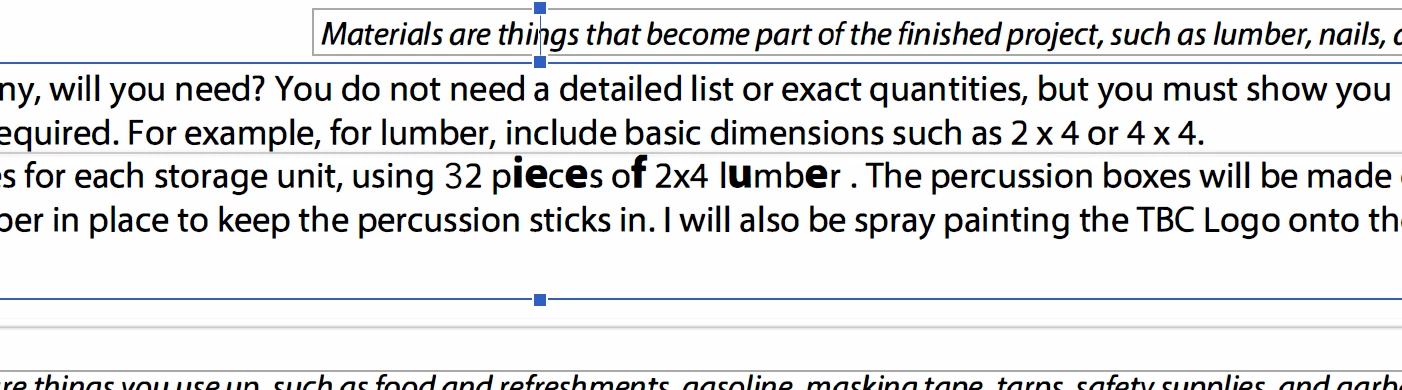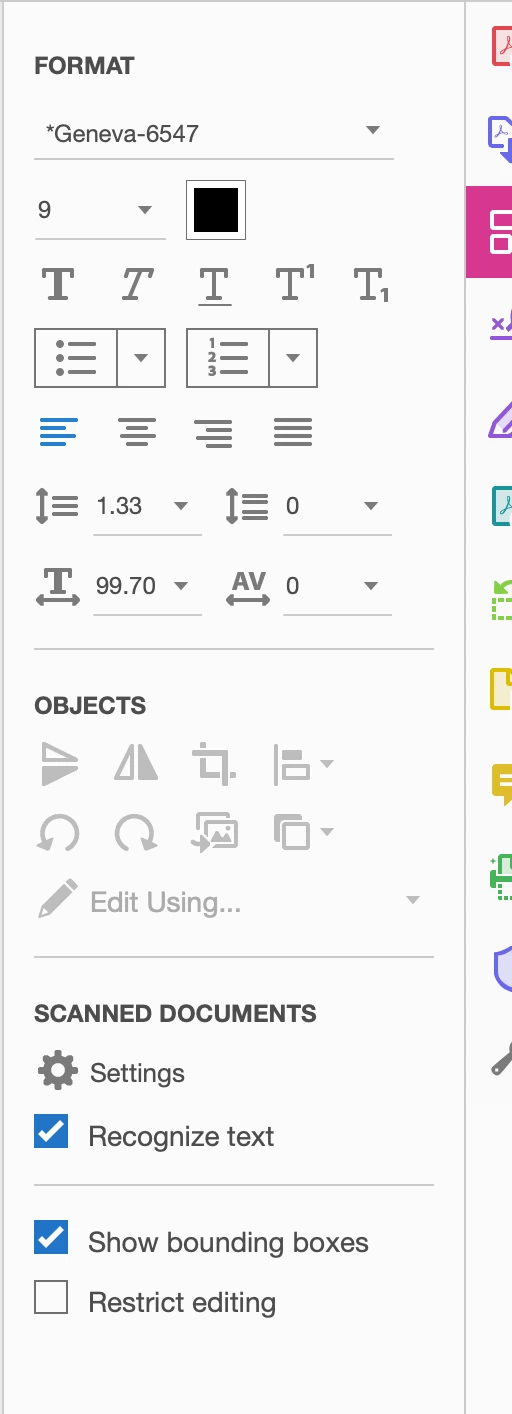
Text has inconsistent font while typing
I started my page in free adobe DC and moved to premium. However, when I try to add new words onto the document, every 3rd or 4th character that I type into the chat box becomes bolded (below). I am using MacOS Software. I am a beginner to using this software, so any help is appreciated. Thank you!
There may be something weird with the font inside the PDF - I notice it isn't so much every 3-4 characters, as particular characters. One thing to try is to change the font to Arial. Geneva was designed to look much like Arial.